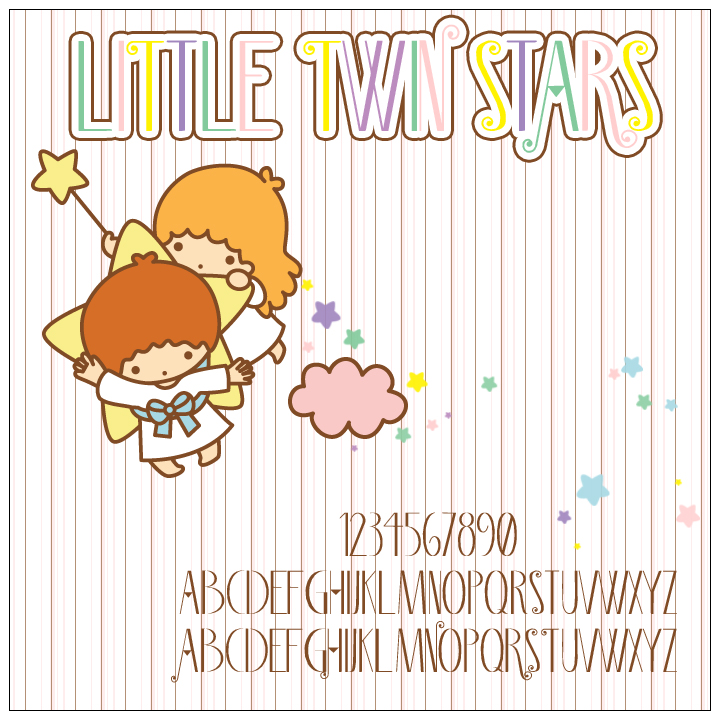
Little Twin Stars Font
I absolutely love collecting fonts, so I when I saw some really adorable letters on my Little Twin Stars stationery, I thought I'd make a whole alphabet out of it. This is the first time I've tried making a font, and I don't think it turned out too bad, but the letters aren't entirely clean, and the font doesn't include everything. Basically, there's just the uppercase style letters and numbers. Some of the letters in the uppercase slots have the curlycue design added to them, while all of the lowercase slot letters are plain.